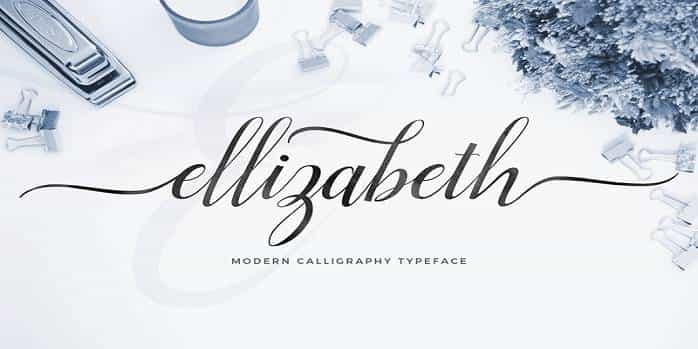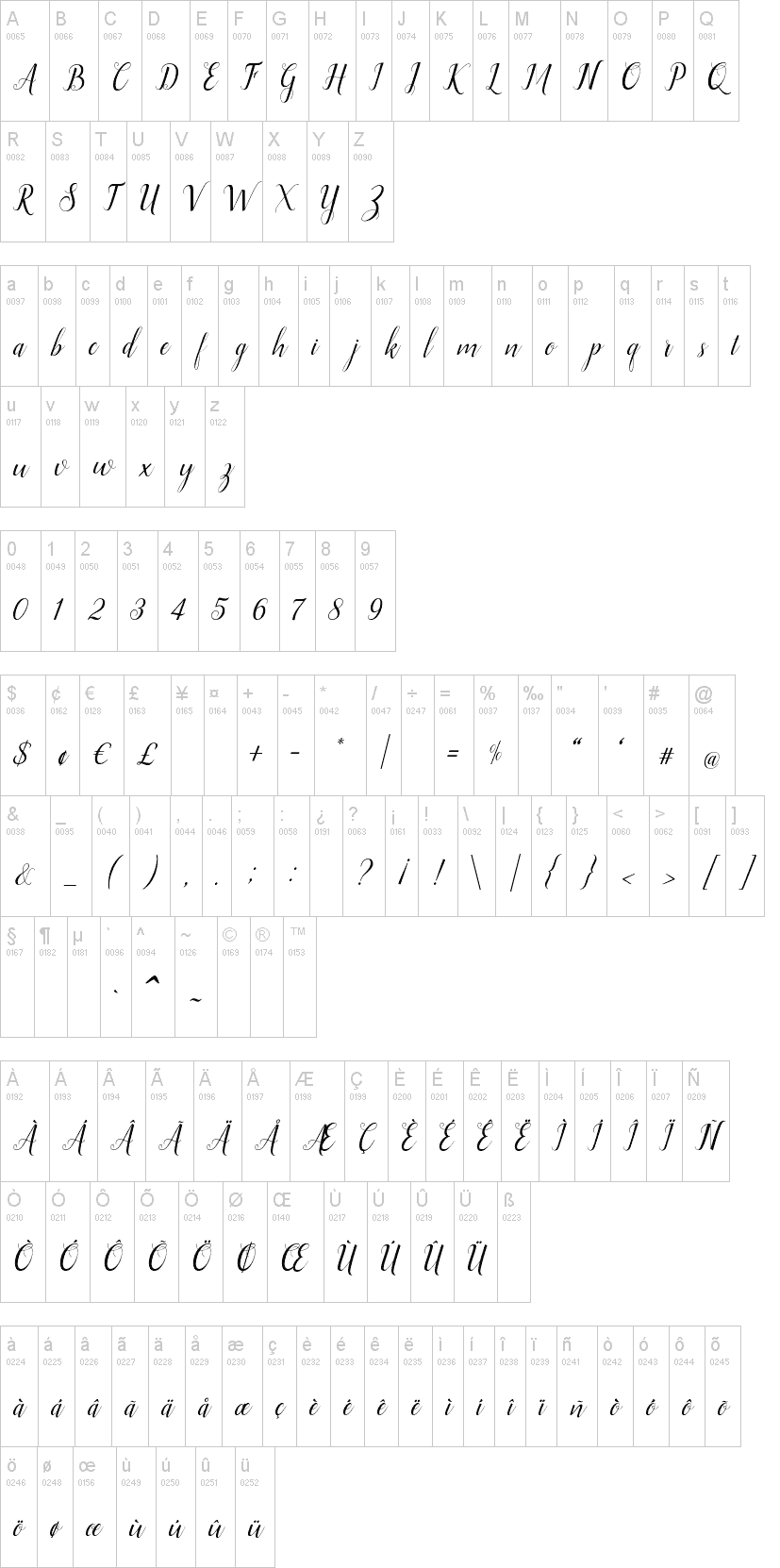
Elizabeth script typeface is beautiful calligraphy and modern inreguler baseline that is best for script typeface. This font is versatile to be used in a number of products in every project, for instance, in creation of wedding invitations, greeting cards, correspondence, and many other usages and more. It supports some international fonts, for example, you can get a unique ligatures, font, there are 460 glyphs, there are so many options that you can use for your projects.